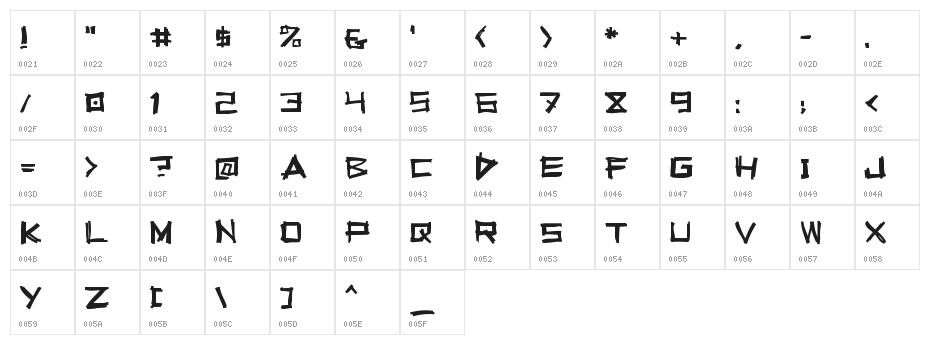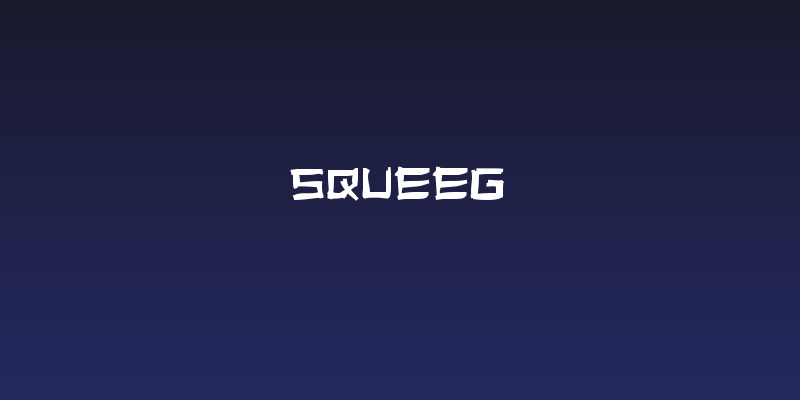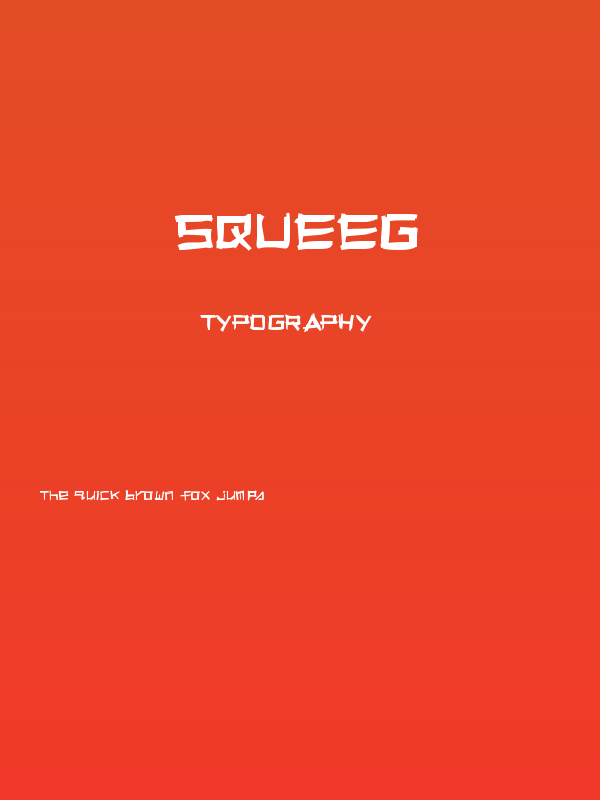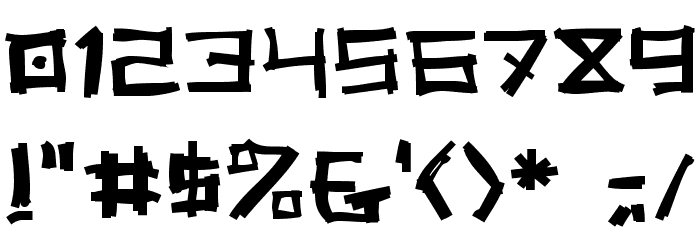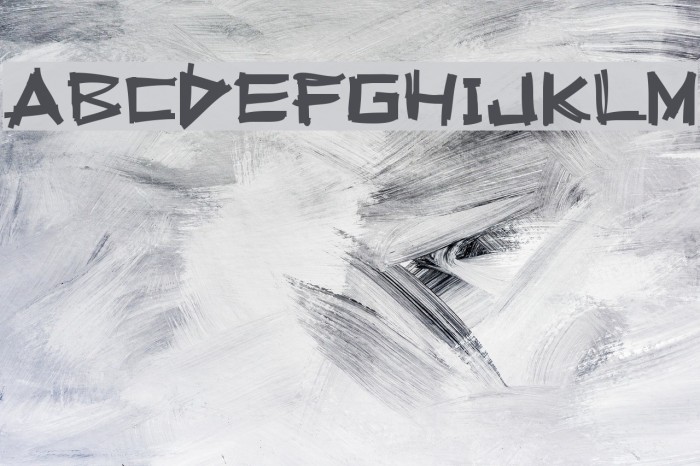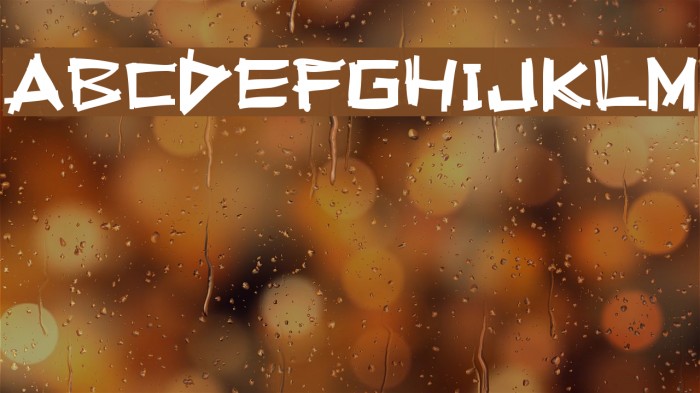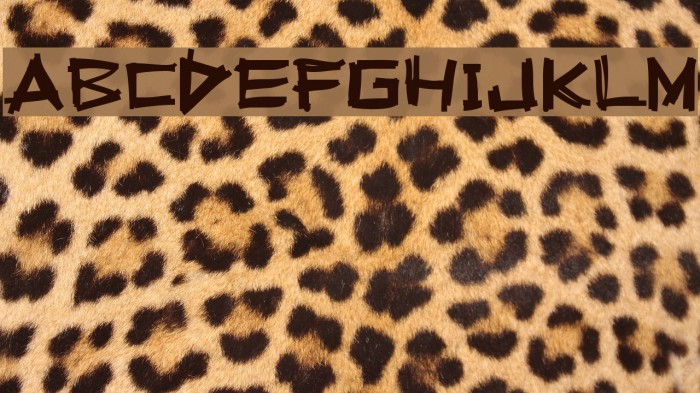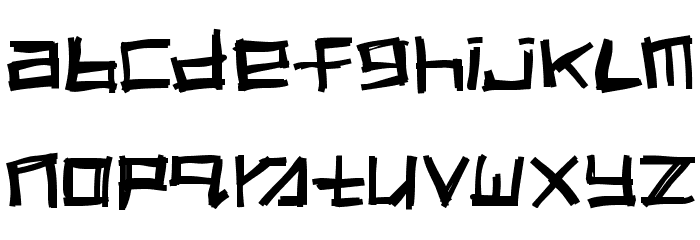
Squeeg Font
This font features a bold, graffiti-inspired style with an edgy and dynamic appearance. The characters are angular and irregular, giving a sense of movement and energy. The uppercase and lowercase letters maintain a consistent style, with sharp edges and a slightly rough texture that mimics the look of hand-drawn or spray-painted text. The numerals and special characters follow the same aesthetic, ensuring a cohesive look across all elements. This font is ideal for projects that require a bold, urban, and contemporary feel.